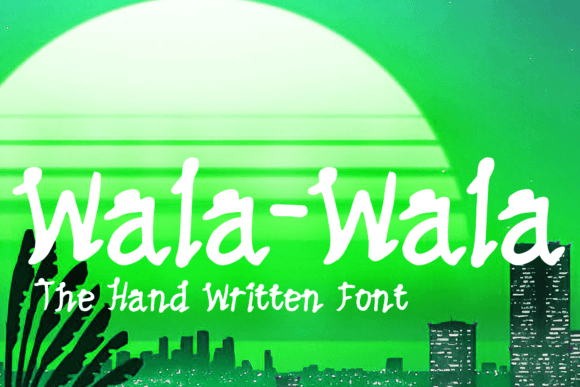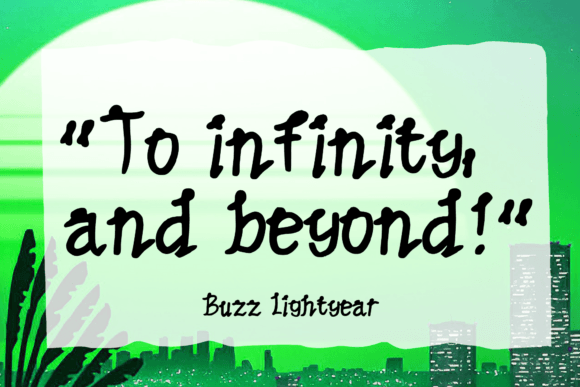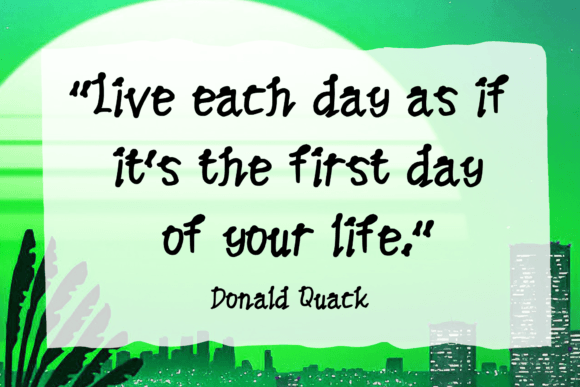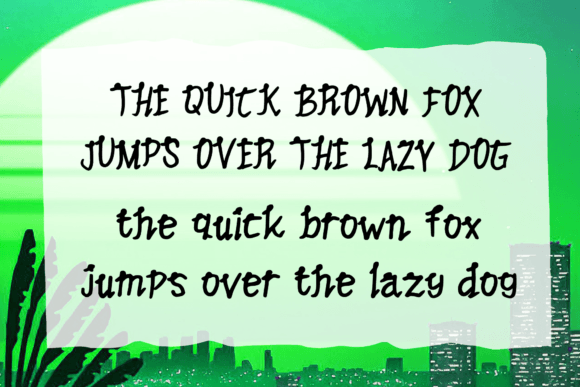
Dancing Wala Wala Font
About Dancing Wala Wala Font
Dancing Wala Wala is a lo-fi Asian-inspired handwritten font. You can’t go wrong with this font! You can use this handwritten font for anything ranging from greeting cards to stickers and posters, or anything that needs a casual touch. Fall in love with its incredibly versatile style and use it to create lovely designs!